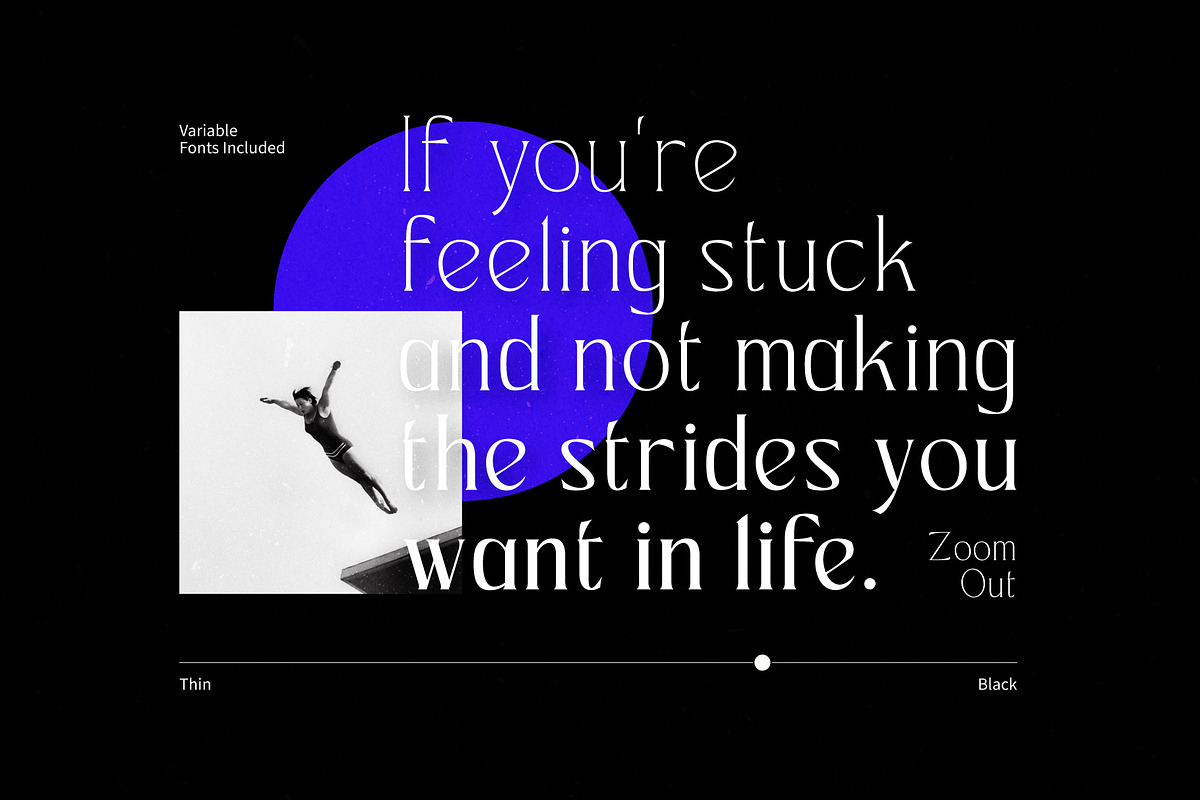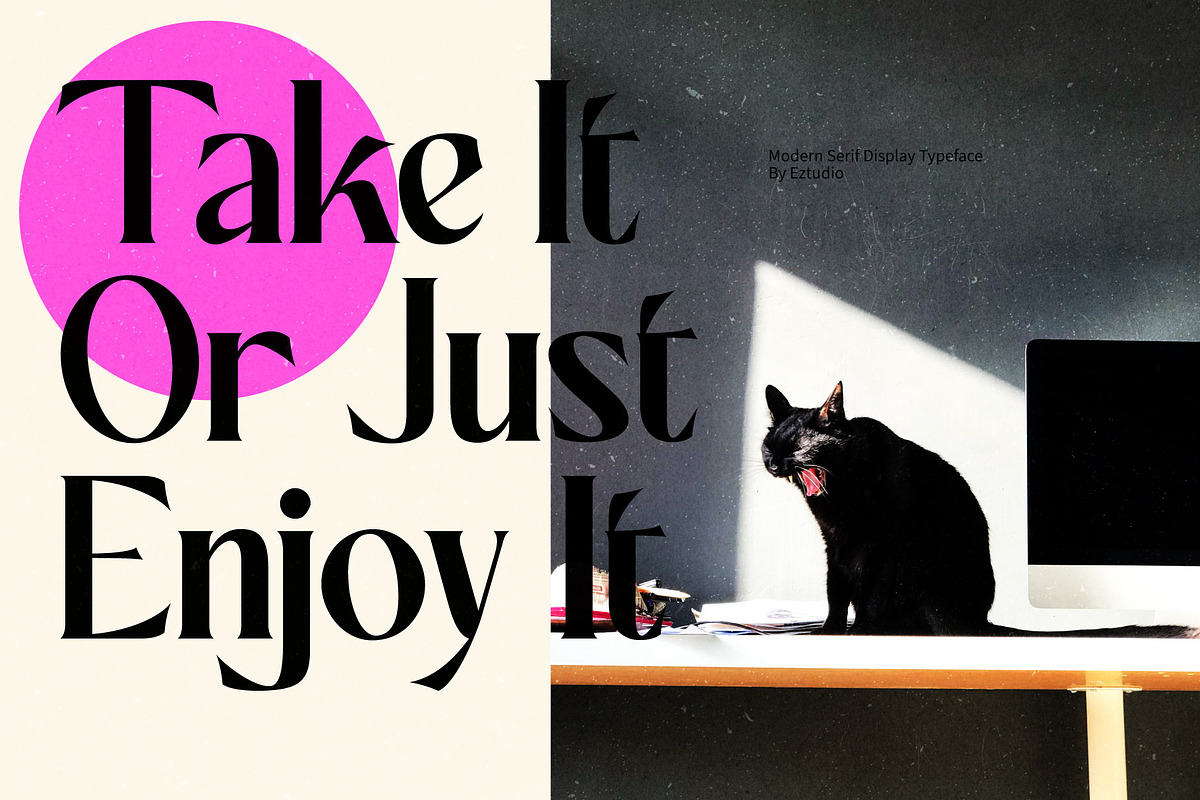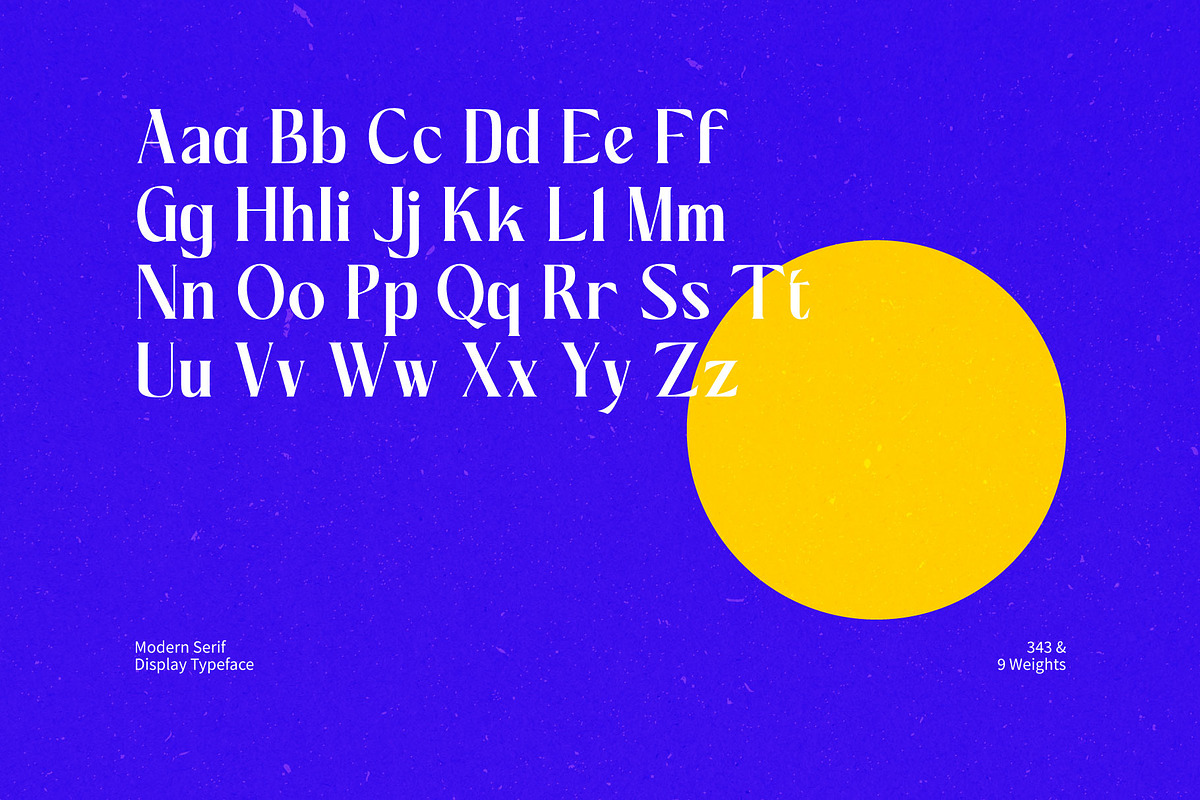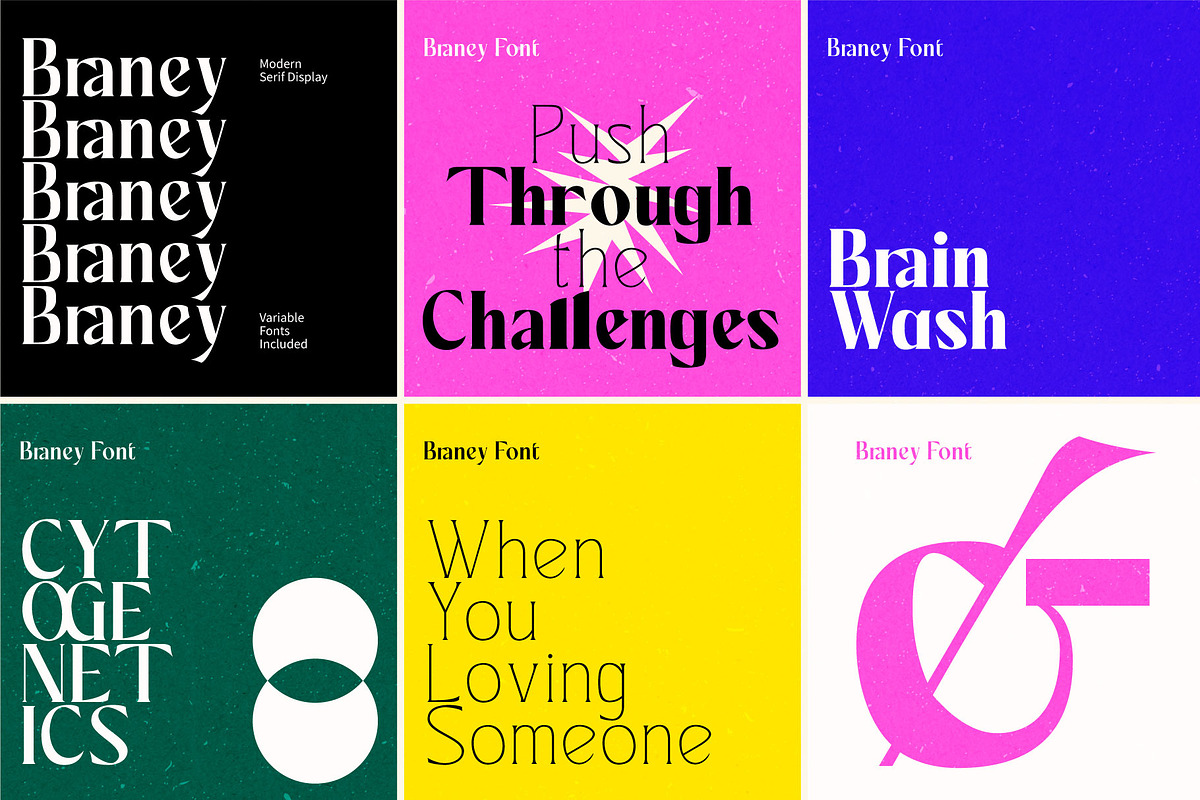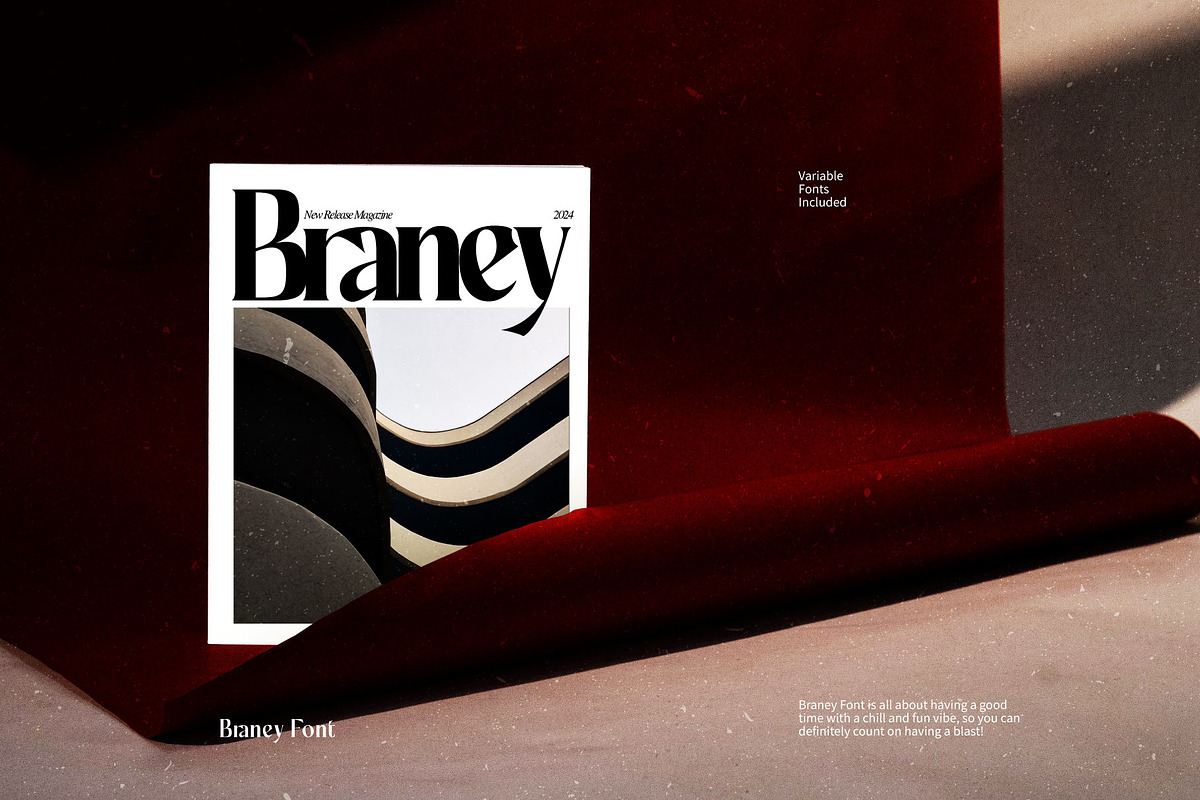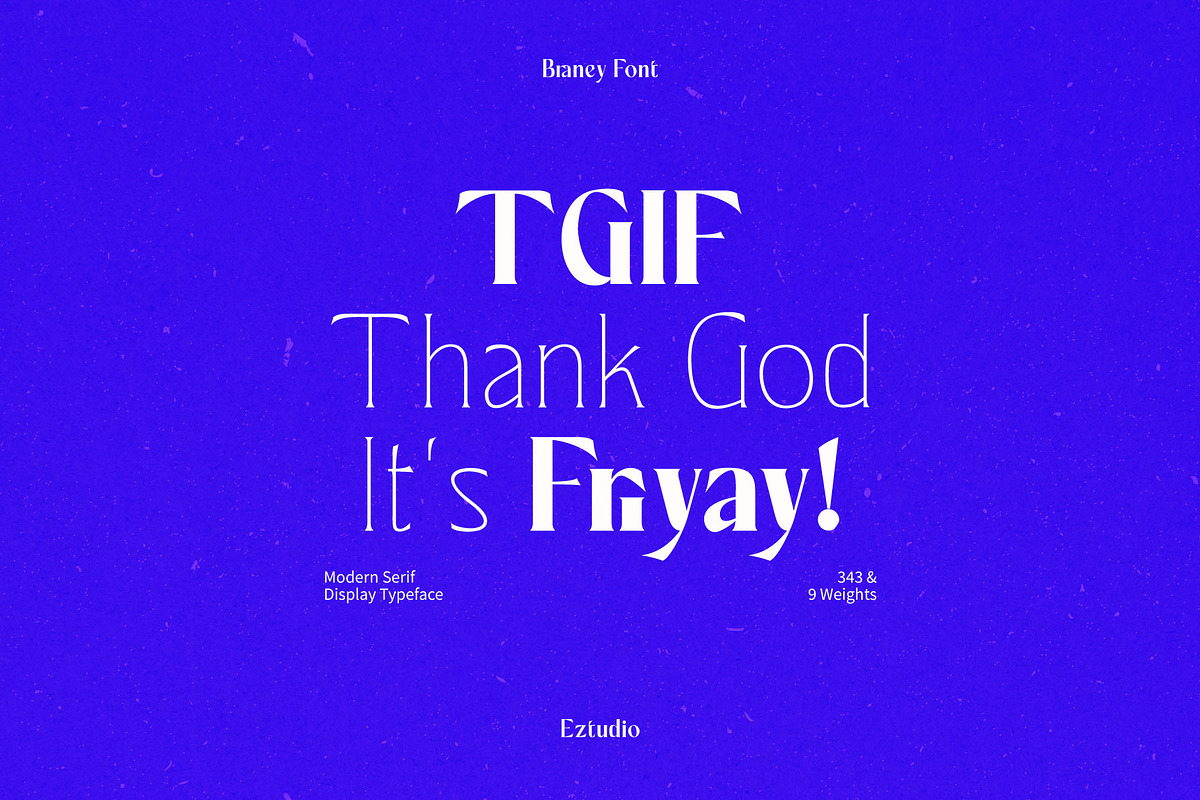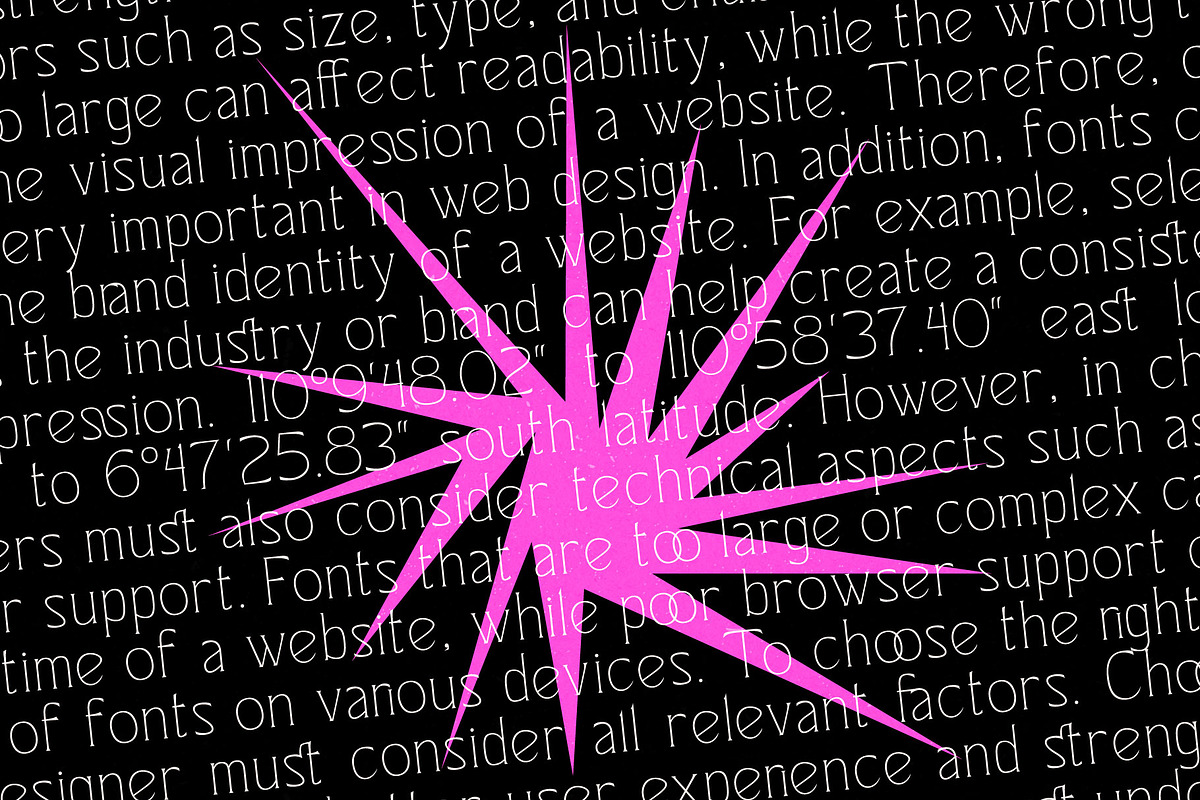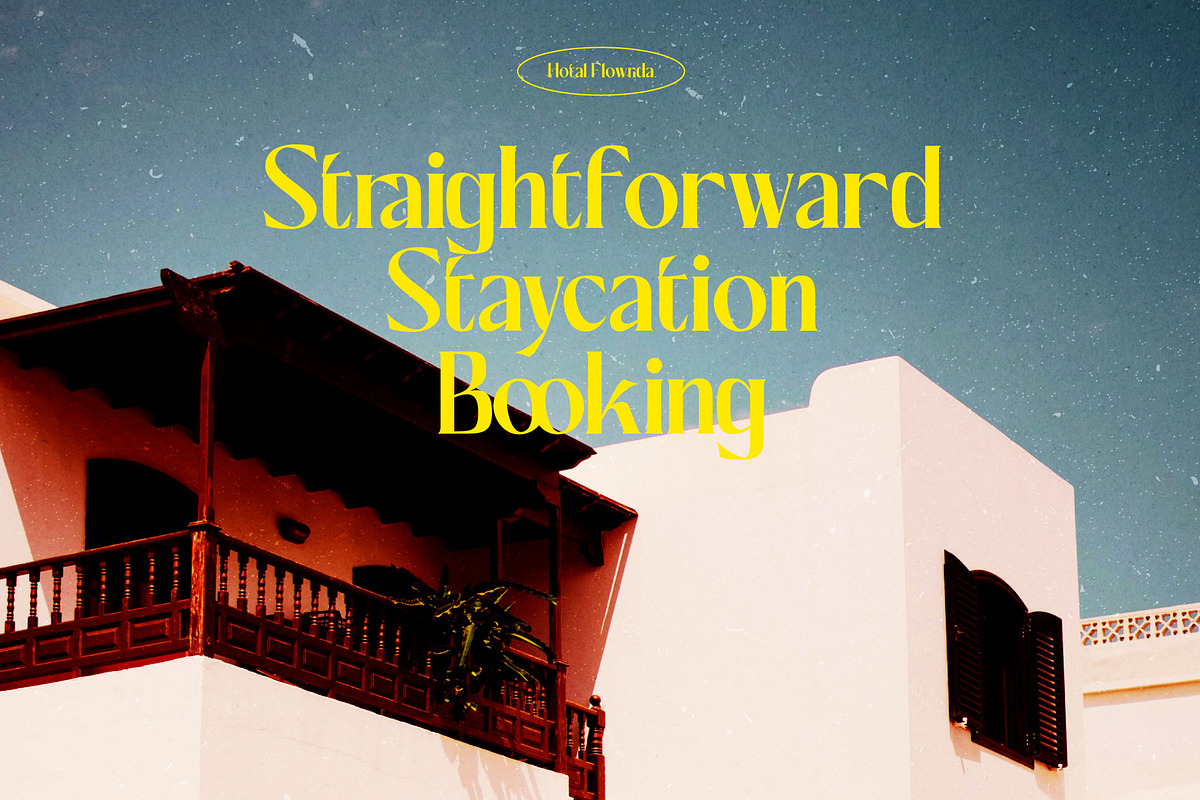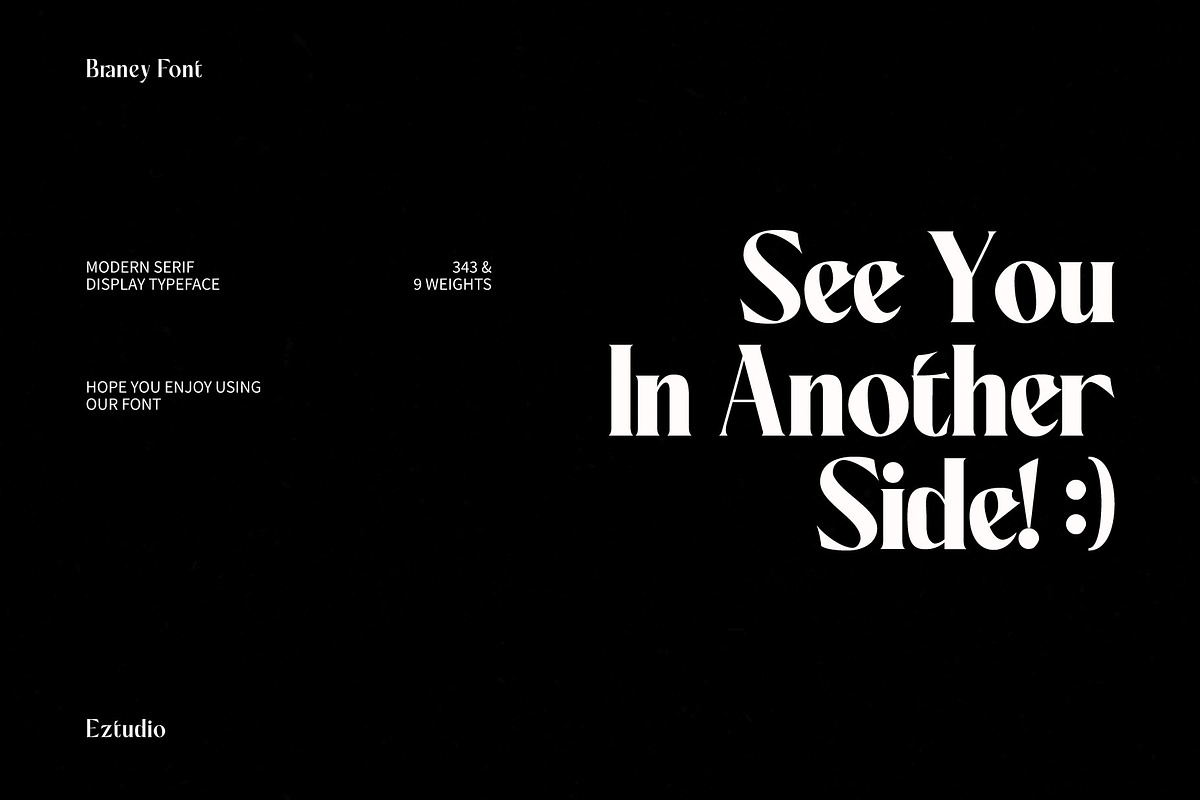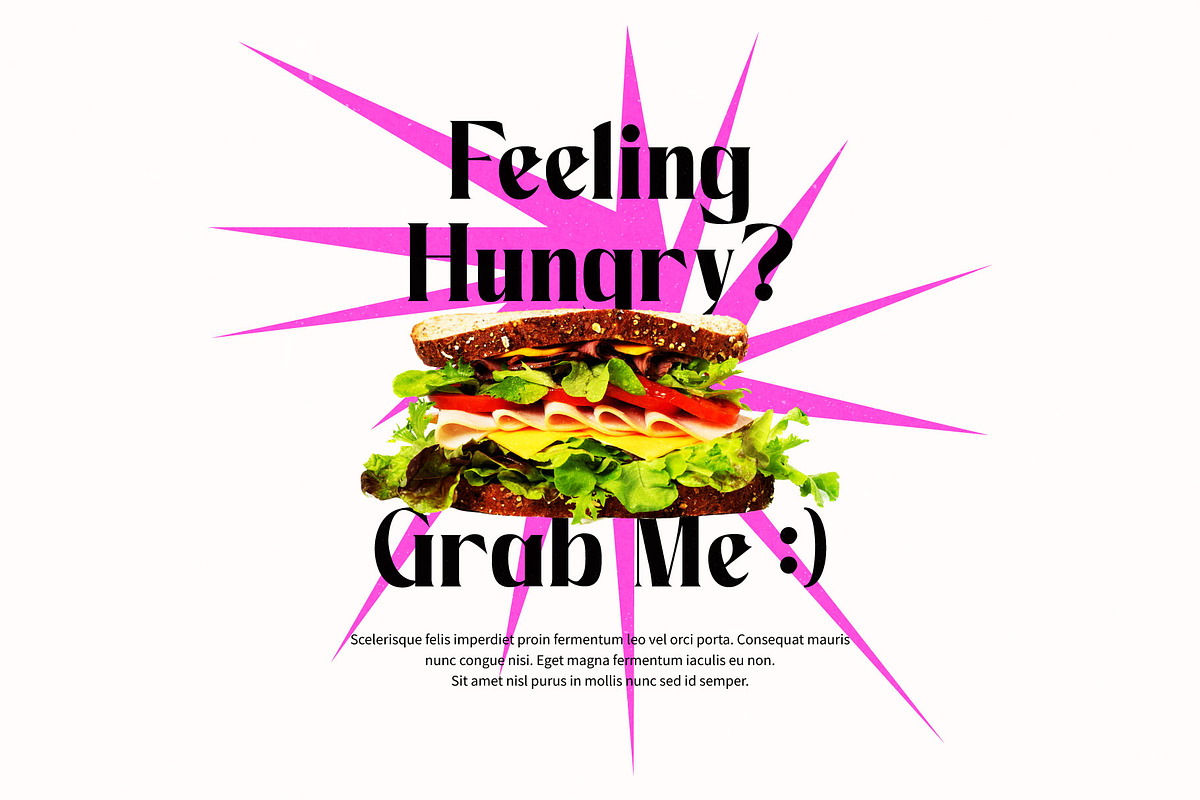
Ez-Barney - Modern Serif Display
Ez-braney is a modern serif font that brings a fresh and contemporary touch to any design project. This modern display serif font can be used to create elegant and luxurious design displays, such as logos, titles, and use on web or social media displays.